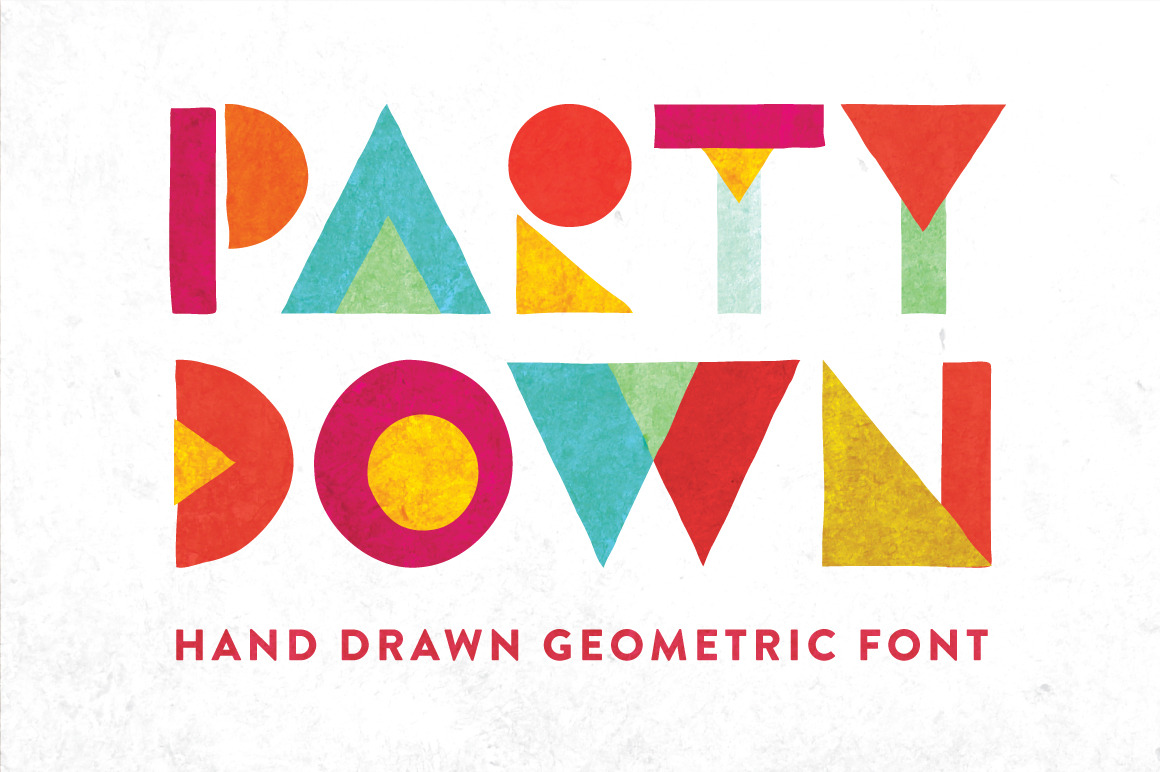
Party Down - Geometric Font
Seriously though, I present to you "Party Down" a hand drawn geometric font.
CHARACTERS INCLUDED:
- Uppercase alphabet A-Z
- Small caps for lowercase A-Z
- Numbers 0-9
- Special characters !?,.:;/'"